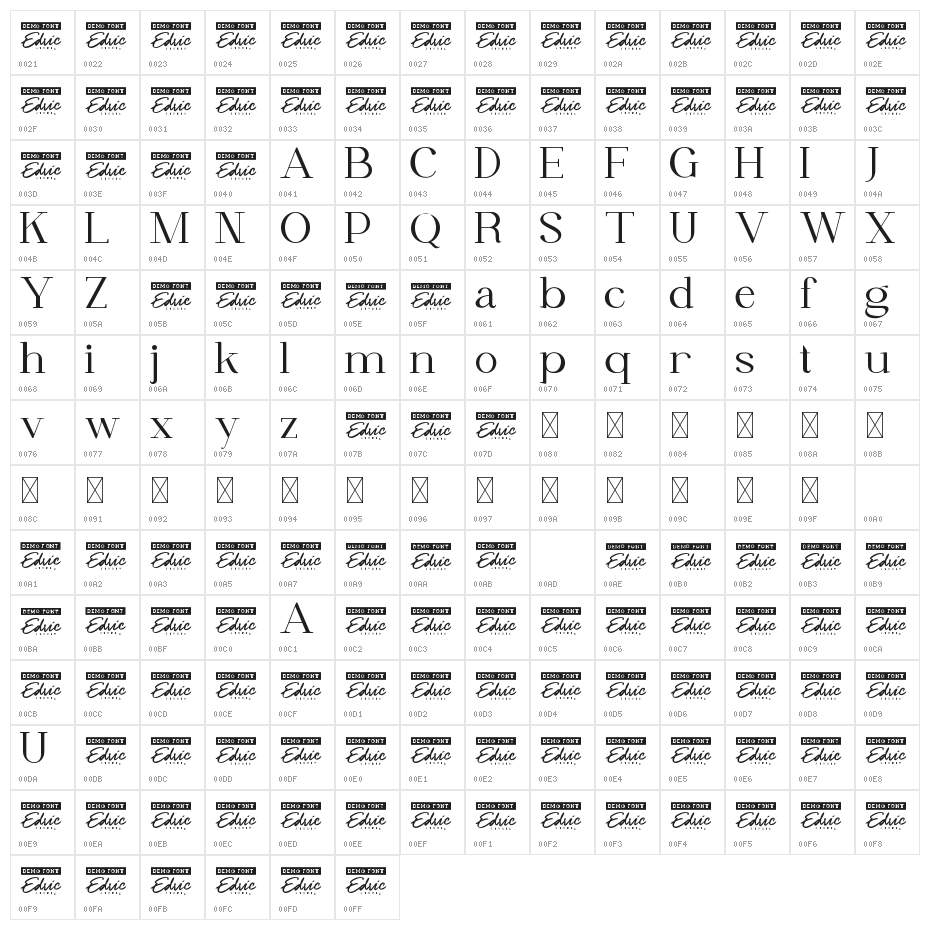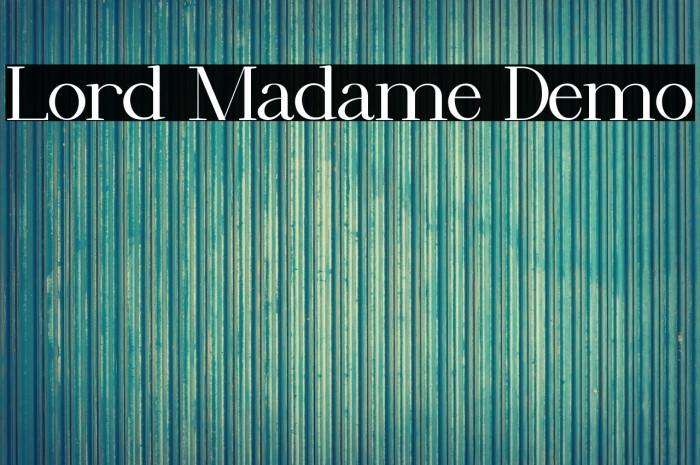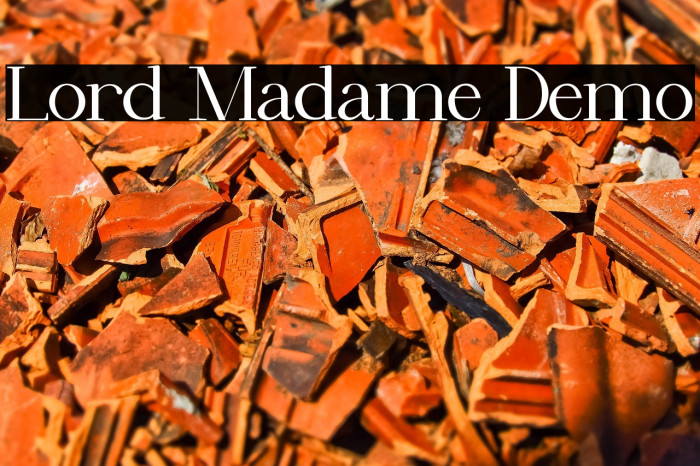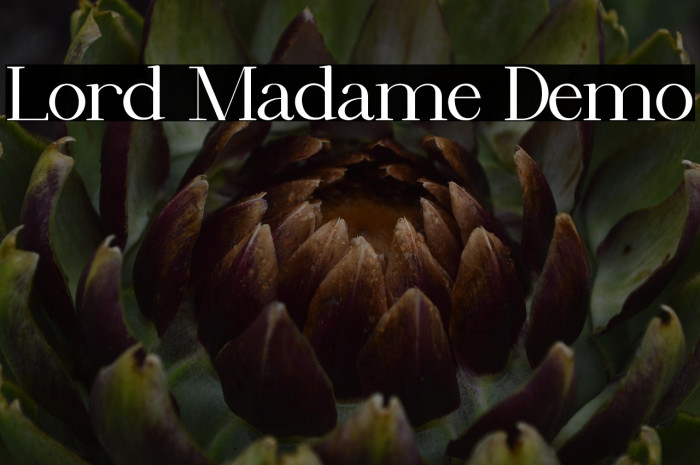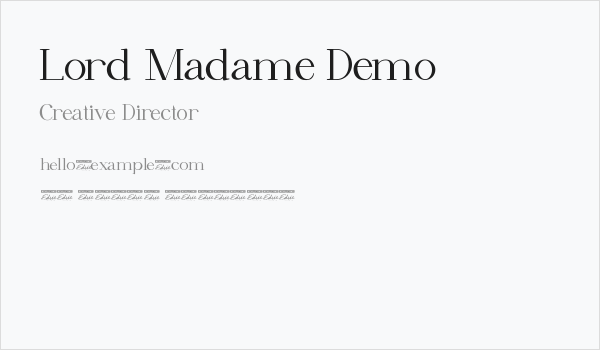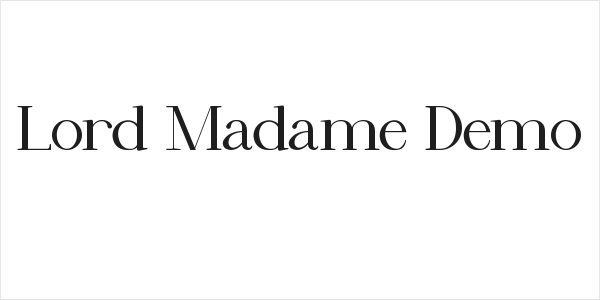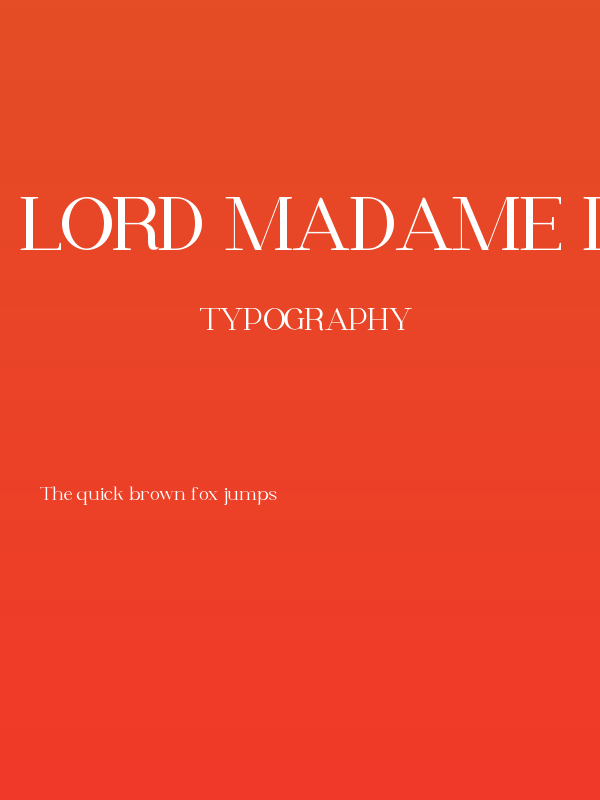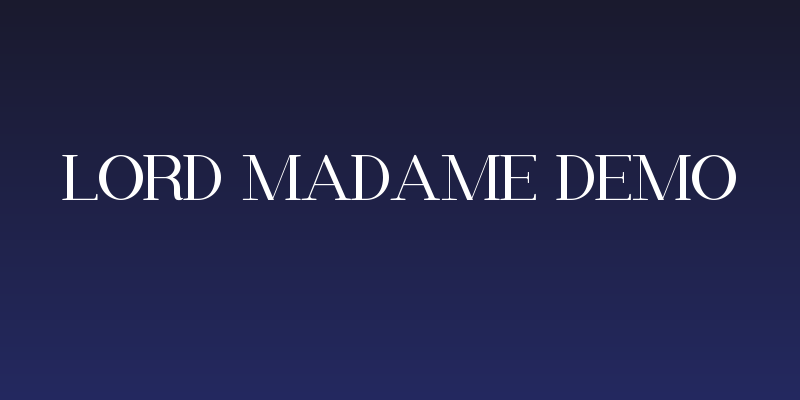
Lord Madame Demo Font
Lord Madame Demo Description
This elegant serif font features a classic and sophisticated design with high contrast between thick and thin strokes. The uppercase letters are tall and stately, while the lowercase letters maintain a refined and balanced appearance. The font's overall style is reminiscent of traditional serif typefaces, yet it incorporates modern elements that make it versatile for various design projects. The characters are well-spaced, providing a clean and readable text flow. This font is ideal for projects that require a touch of elegance and formality.
| Proposed Projects | Ideal for luxury branding, editorial design, wedding invitations, and high-end product packaging. |